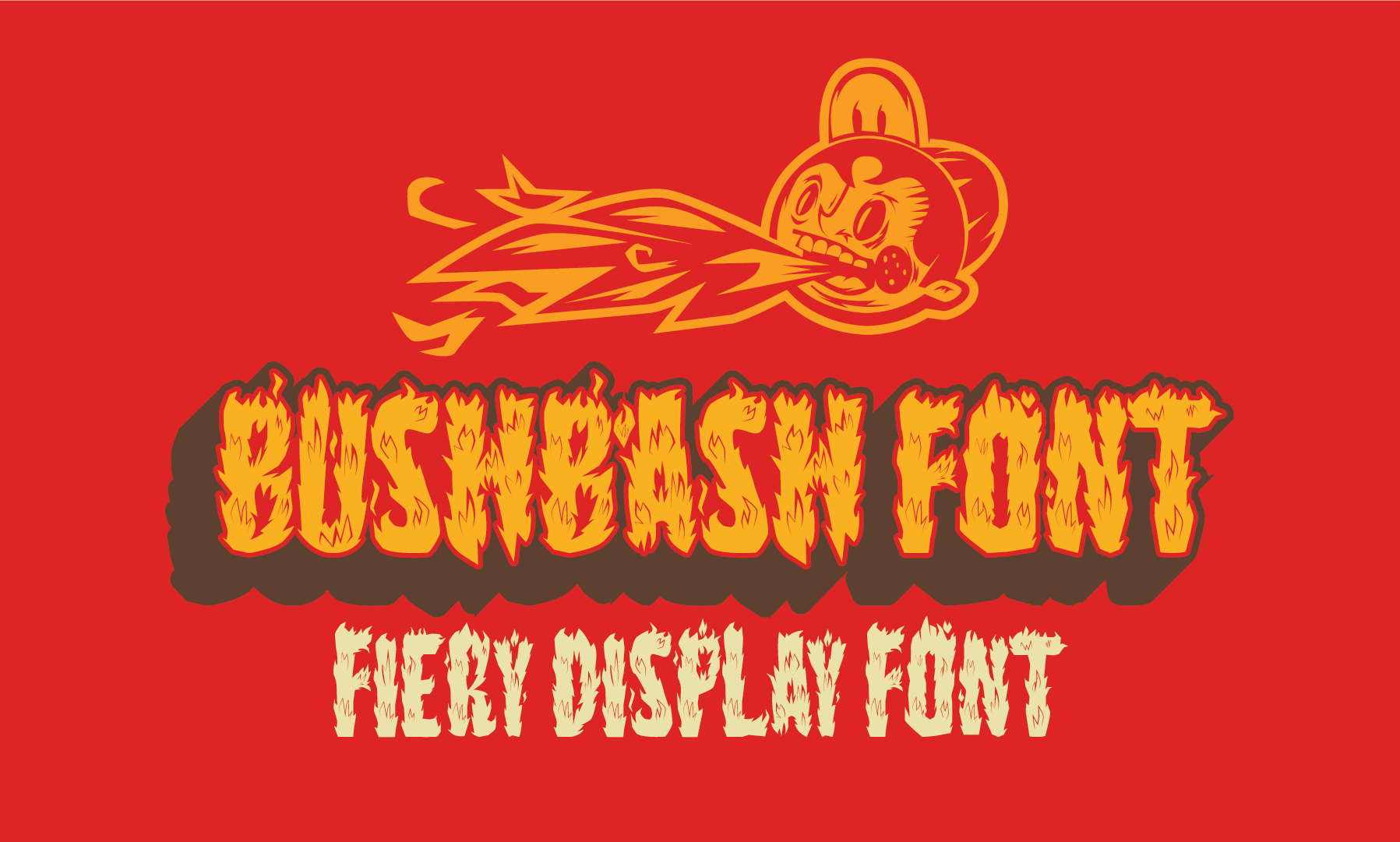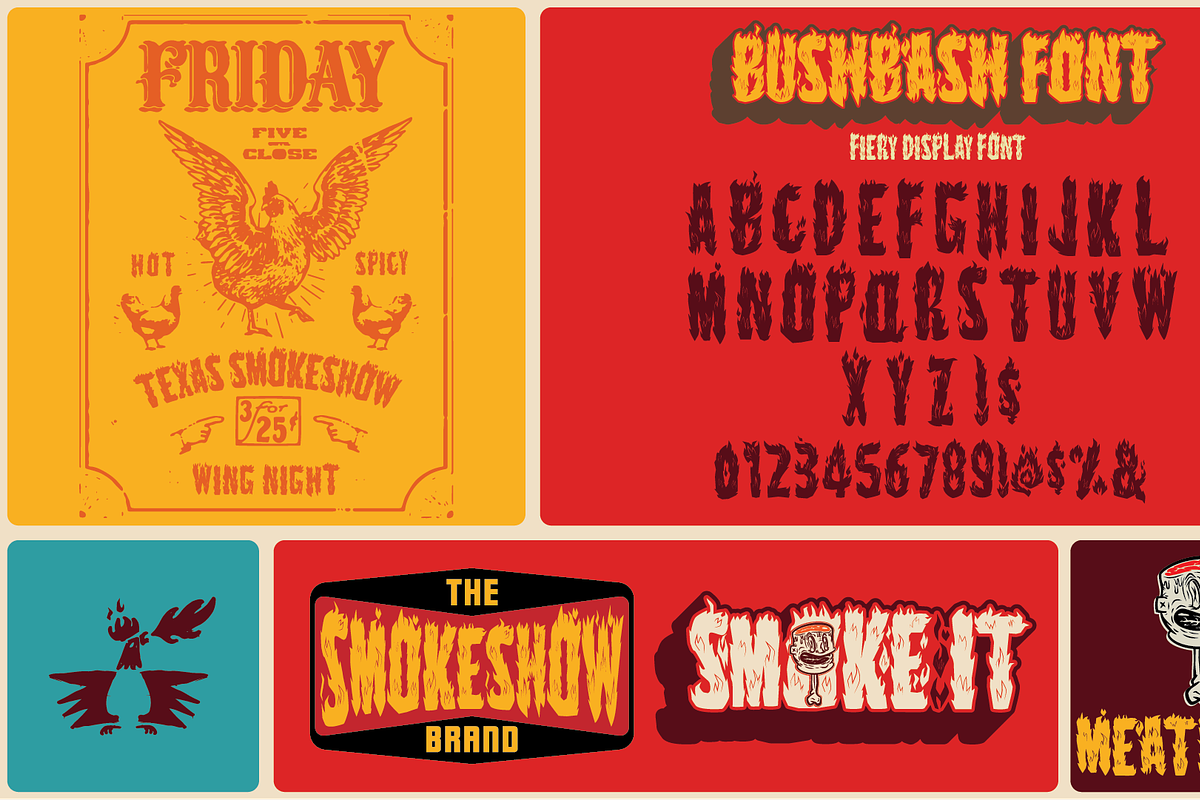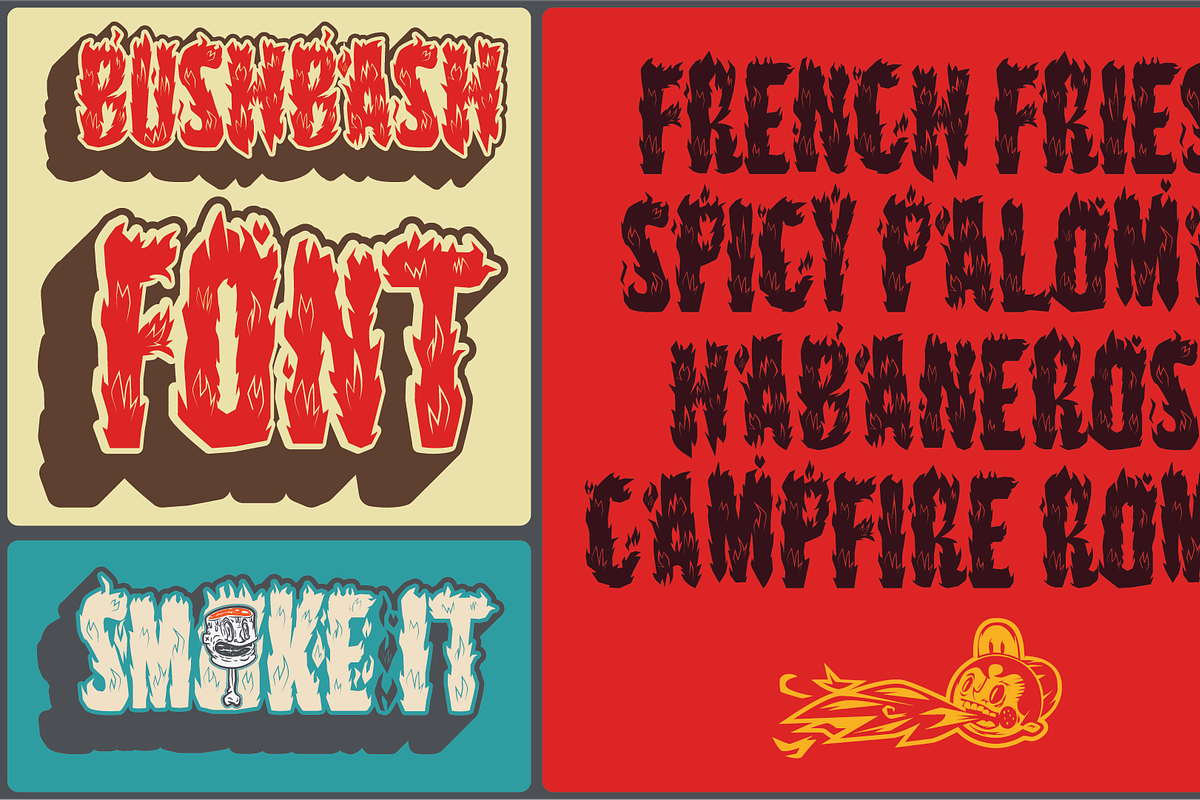
Bush Bash| Fiery Display Font
Bush Bash was born from a recent project. I love the almost paper cutout look. as if it was cut out with a Xacto knife. I hope you enjoy this for all your fiery and fired-up needs. Designed by Bend Industries in Seabrook, Texas.